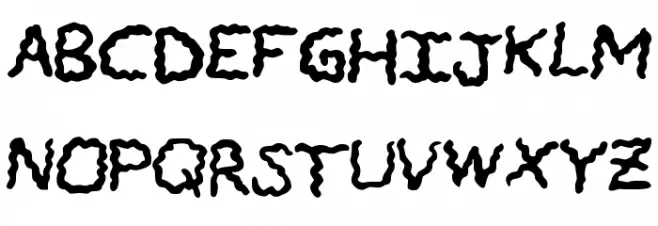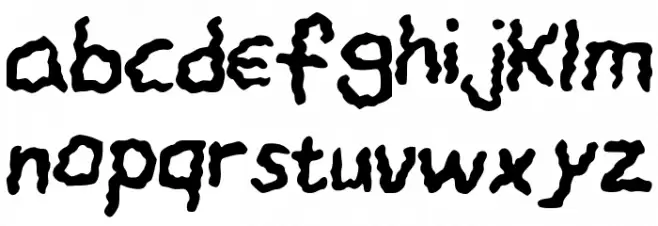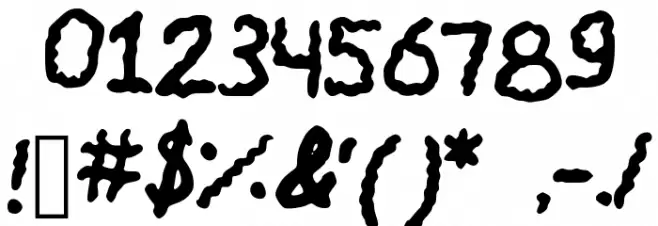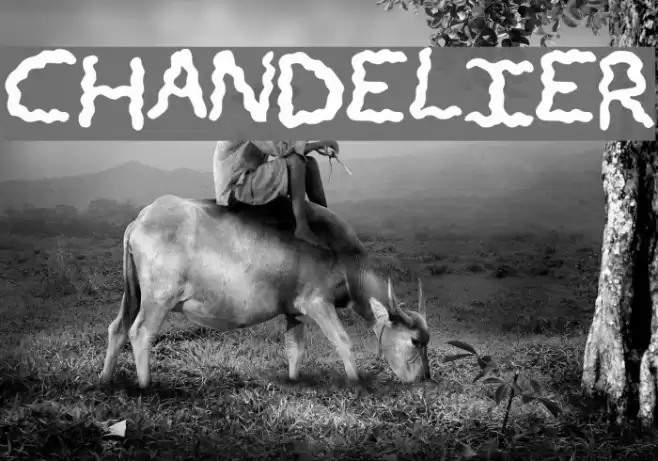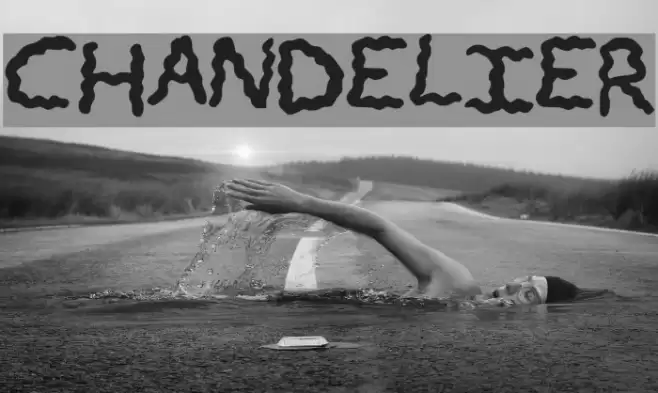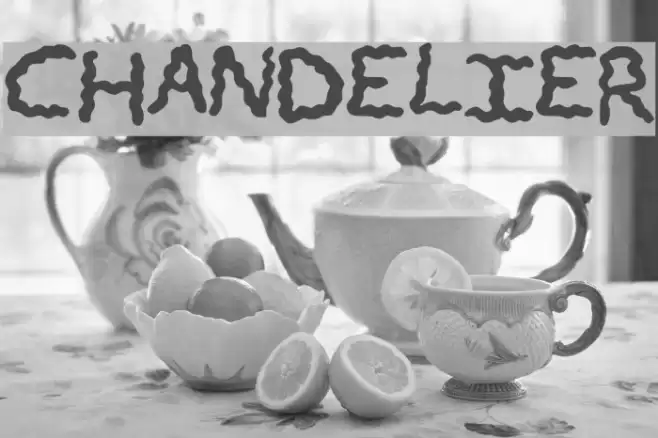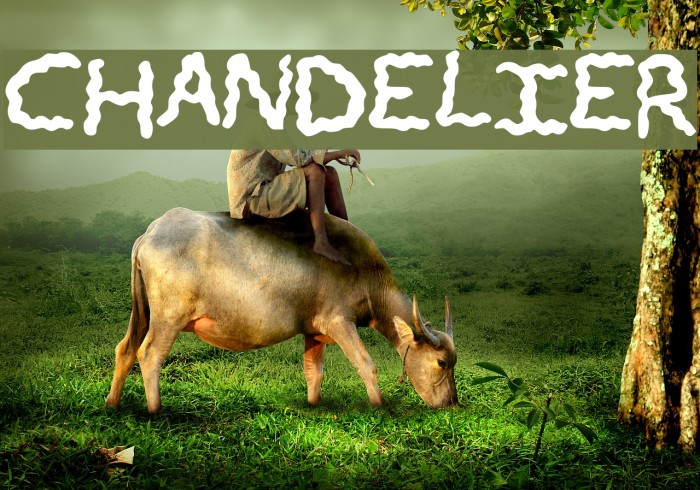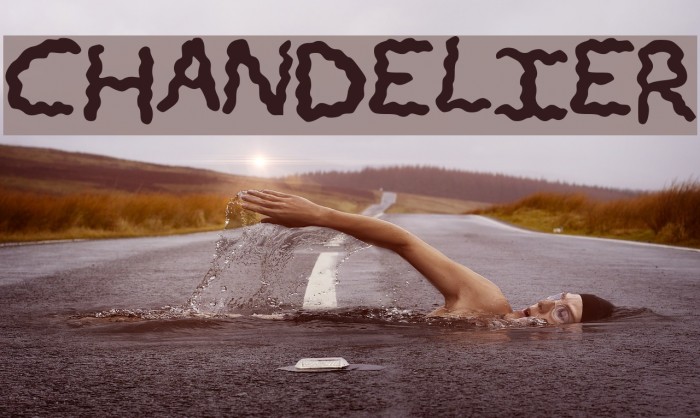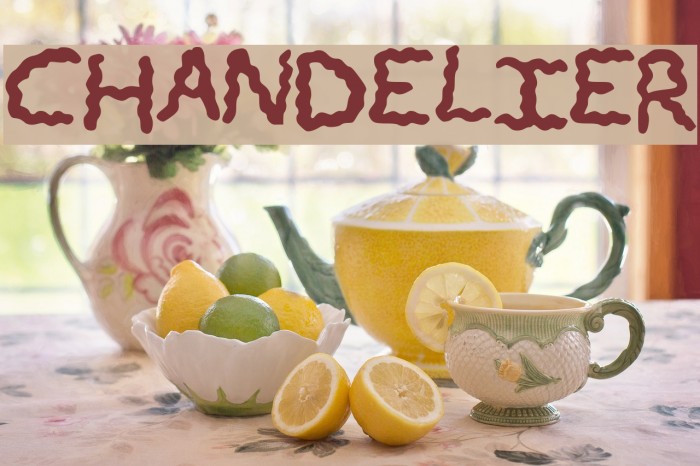
CHANDELIER
This font features a unique, organic style with irregular, wavy edges that give it a hand-drawn appearance. The characters are bold and have a playful, almost whimsical quality, making them stand out. The uppercase and lowercase letters maintain a consistent style, with the uppercase being slightly larger and more pronounced. Numbers and special characters follow the same design principles, ensuring uniformity across all glyphs. The font's overall appearance is casual and artistic, suitable for creative projects that require a distinctive and eye-catching typeface.
A bold, wavy, hand-drawn style font with an organic, playful appearance.
- Proposed Projects: Ideal for children's book covers, creative posters, artistic branding, and playful invitations.
- Overall Style: Decorative
- Use Case: Logos, Headlines, Posters